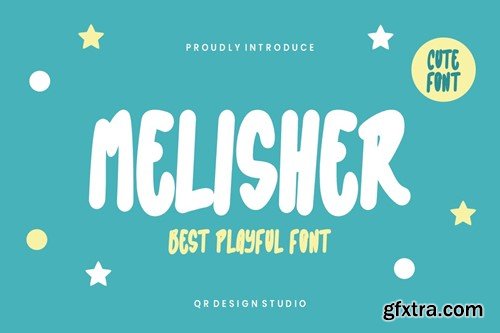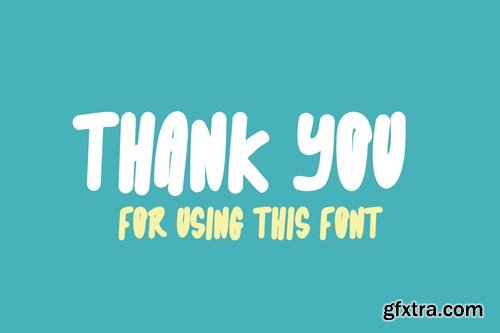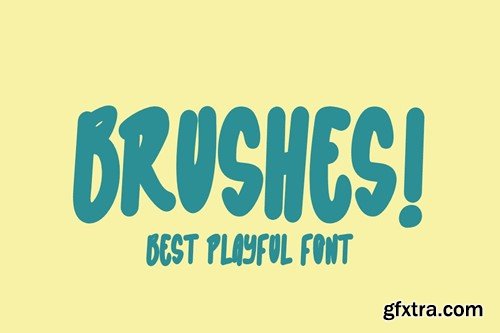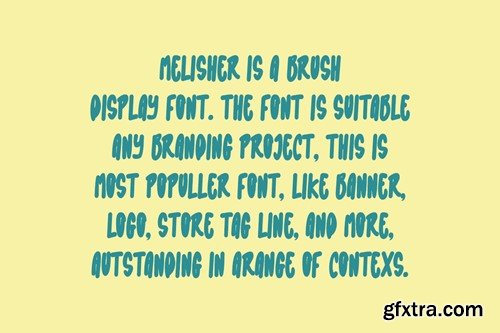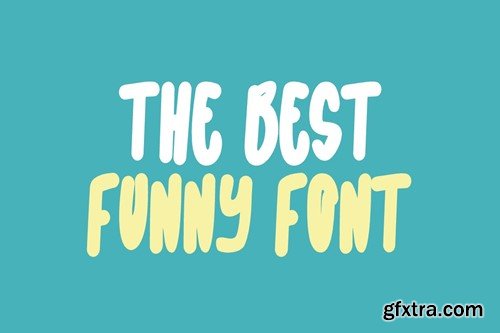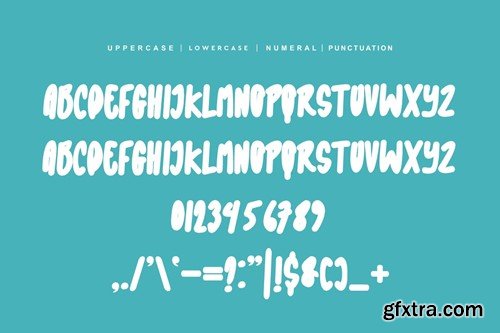
梅利瑟 - 玩趣字体 SC83HUB
Melisher - Playful Font SC83HUB
Melisher - Playful Font
Melisher - Playful Font is a brush and authentic display font. The font is suitable for any branding project like poster, logo, sport, and many more. Outstanding in a wide range of contexts.